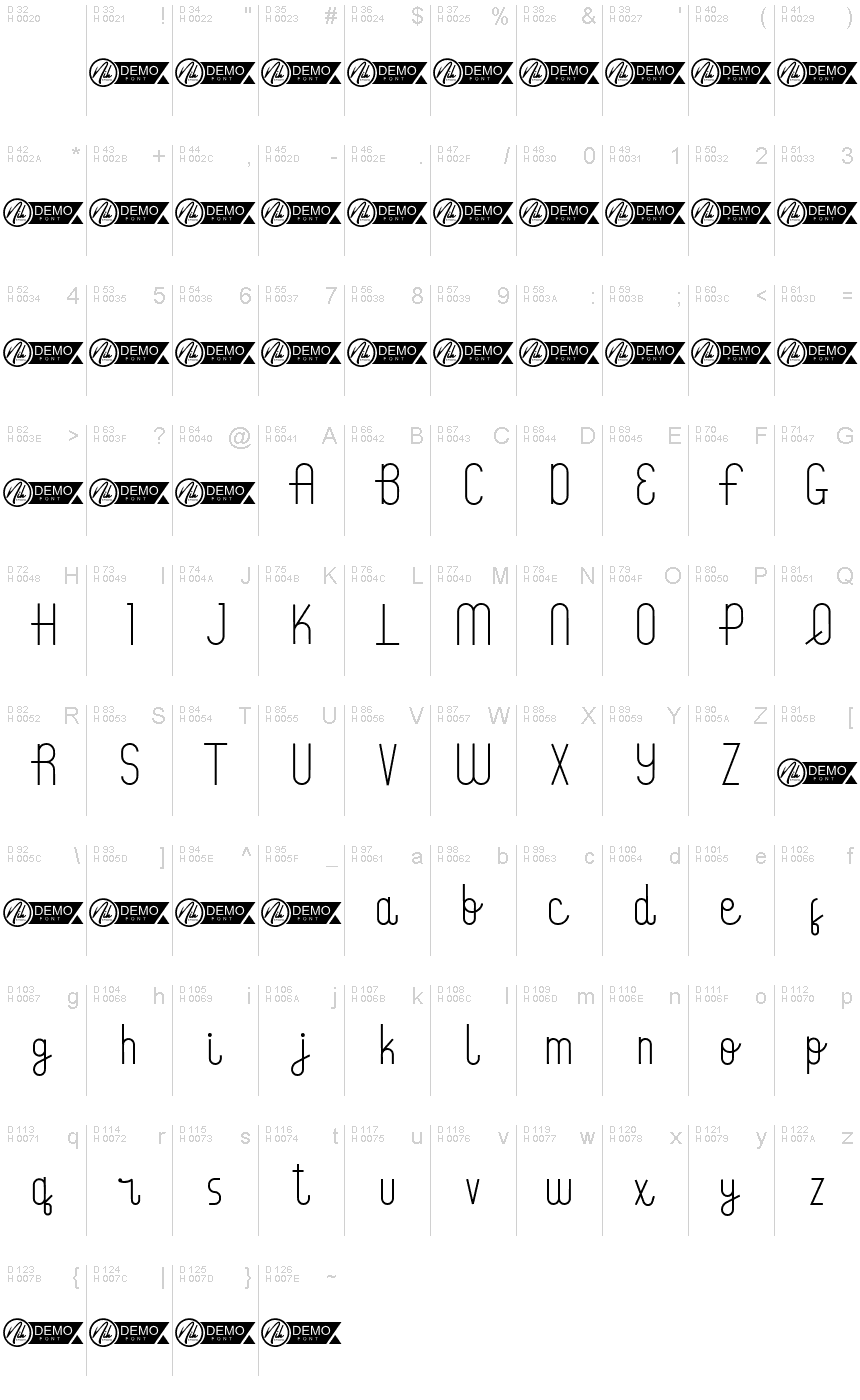
Monofil Demo
Monofil, the latest creation from NihStudio, is a breathtaking handwritten font that's perfect for any project. Its light weight and condensed width give it an elegant appearance that will make your text stand out. Monofil is ideal for creating invitations, greeting cards, posters, and even website designs. The font typeface adds a personal touch to your projects and delivers the message with style. Bring your brand to life with Monofil's unique handwritten style that will capture the attention of your audience. Give your projects a touch of elegance with Monofil - the handwritten font that'll leave a lasting impression on everyone who sees it!